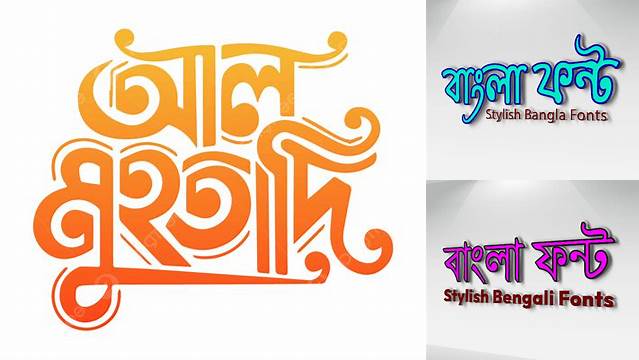
Hey guys! Are you looking to spice up your documents, designs, or social media posts with some stylish Bangla fonts? Well, you’ve come to the right place! In this article, we’re diving deep into the world of Bangla fonts, exploring everything from where to download them for free to how to install them on your PC. We'll also cover different styles and use cases so you can find the perfect font for your needs. So, let’s get started!
5. Different Styles of Bangla Fonts Available
When it comes to stylish Bangla fonts, you're spoiled for choice! There’s a whole universe of styles out there, each with its own unique personality and flair. Understanding these different styles can help you choose the perfect font for your specific project. One of the most popular categories is the classic Bangla font. These fonts often have a traditional, elegant look and feel, making them ideal for formal documents, invitations, and other sophisticated designs. Think of fonts that evoke a sense of heritage and timeless beauty. On the other end of the spectrum, we have modern Bangla fonts. These fonts embrace contemporary design principles, often featuring clean lines, geometric shapes, and a minimalist aesthetic. They're perfect for websites, branding materials, and anything that needs a fresh, cutting-edge vibe. For a touch of personality, consider script Bangla fonts. These fonts mimic the look of handwriting, adding a personal and artistic touch to your designs. They're great for headings, logos, and anything where you want to make a statement. Then there are display Bangla fonts, which are designed to grab attention. These fonts are often bold, quirky, and highly stylized, making them perfect for posters, advertisements, and other eye-catching materials. Don't forget about serif and sans-serif Bangla fonts. Serif fonts have small decorative strokes at the ends of the letters, giving them a more traditional and formal appearance, while sans-serif fonts have clean, straight lines, making them more modern and legible on screens. Exploring these different styles can be a fun and creative journey. Don't be afraid to experiment and mix and match fonts to create unique and visually appealing designs. The key is to find fonts that not only look great but also effectively communicate your message. So, dive in and discover the perfect style for your next project! You got this, guys!
6. Best Bangla Fonts for Professional Use
For professional projects, selecting the right stylish Bangla font is crucial. You want something that not only looks good but also conveys professionalism, readability, and aligns with your brand or the project's tone. When it comes to professional use, certain font styles tend to work better than others. Clean, legible fonts are generally preferred, especially for body text and documents that require clarity. Serif and sans-serif fonts are both excellent choices, but it really depends on the specific context. Serif fonts, with their small decorative strokes, often lend a sense of tradition and sophistication, making them ideal for formal documents, reports, and publications. Sans-serif fonts, on the other hand, have a more modern and minimalist feel, making them great for websites, presentations, and branding materials. When choosing a font for professional use, consider the overall design aesthetic. Does the font complement your brand's identity? Is it easy to read both on screen and in print? These are important questions to ask yourself. It’s also wise to stick to font families that offer a range of weights and styles. This gives you flexibility in your design and ensures consistency across different applications. For example, you might use a bold weight for headings and a regular weight for body text. Some popular choices for professional Bangla fonts include those that balance elegance with readability. Fonts that are well-designed and have clear letterforms tend to perform best in a professional setting. Avoid overly decorative or stylized fonts, as they can sometimes be distracting or difficult to read, especially in large blocks of text. Remember, the goal is to communicate effectively, so prioritize clarity and professionalism in your font selection. With the right font, your professional projects will not only look polished but also leave a lasting impression. Keep up the great work, everyone!
7. Bangla Fonts for Creative Design Projects
Okay, let's talk about creative design projects! This is where you can really let your imagination run wild with stylish Bangla fonts. Unlike professional use, where clarity and readability are paramount, creative projects often call for fonts that are expressive, unique, and make a bold statement. This is your chance to explore those more stylized, artistic, and unconventional font options. When you're working on a creative design, think about the mood and message you want to convey. Are you going for playful and fun, or edgy and dramatic? The font you choose can play a huge role in setting the tone. For example, a script Bangla font can add a touch of elegance and personality to a design, while a bold display font can command attention and create a strong visual impact. Don't be afraid to experiment with different font combinations. Mixing and matching fonts can add depth and interest to your designs, but it's important to do it thoughtfully. A good rule of thumb is to choose one dominant font for headings or key elements and then pair it with a simpler font for body text. This creates a visual hierarchy and ensures readability. Consider the context of your design as well. A font that looks amazing on a poster might not work as well on a website, and vice versa. Think about the medium and how the font will appear in different sizes and formats. If you're feeling adventurous, you can even try modifying existing fonts or creating your own custom fonts. This is a great way to develop a unique visual identity for your brand or project. Remember, the key to using stylish Bangla fonts in creative design is to have fun and express yourself! Don't be afraid to break the rules and try new things. The most important thing is that your font choice enhances your design and effectively communicates your message. Go unleash your creativity, guys!
8. Bangla Fonts for Social Media Graphics
Social media is a visual playground, and choosing the right stylish Bangla font for your graphics can make all the difference in capturing attention and engaging your audience. With countless posts vying for views, your visuals need to stand out, and typography is a key element in achieving that. When selecting a Bangla font for social media, think about the platform and your target audience. What kind of vibe do you want to convey? Are you aiming for a professional and polished look, or something more casual and playful? Your font choice should align with your brand and the overall tone of your content. Legibility is also crucial, especially on smaller screens. Social media users are often scrolling quickly through their feeds, so your text needs to be easy to read at a glance. Avoid overly decorative or intricate fonts that might get lost in the noise. Instead, opt for clean, clear fonts that grab attention without sacrificing readability. Bold fonts tend to work well for headlines and captions, while simpler fonts are better for longer blocks of text. Experiment with different font combinations to find a pairing that is visually appealing and easy on the eyes. Consider using a font that reflects the content of your post. If you're sharing a motivational quote, a script or handwritten font might add a personal touch. If you're promoting a product or service, a modern sans-serif font might convey a sense of innovation and professionalism. Remember to think about the overall design of your graphic. Your font should complement the images and other visual elements, creating a cohesive and visually appealing composition. Use contrasting colors to make your text stand out, and ensure that your font size is appropriate for the platform. Social media graphics are all about making a statement, so don't be afraid to experiment with stylish Bangla fonts that are eye-catching and memorable. With the right typography, your social media content will shine! Keep up the awesome work, everyone!
9. Bangla Fonts for Website Design
When it comes to website design, selecting the right stylish Bangla font is paramount. Your font choice can significantly impact the user experience, influencing everything from readability to the overall aesthetic appeal of your site. A well-chosen font can enhance your brand identity, communicate your message effectively, and keep visitors engaged. First and foremost, readability should be your top priority. Websites are primarily text-based mediums, so your font needs to be easy on the eyes, especially for longer blocks of content. Opt for fonts with clear letterforms and adequate spacing. Sans-serif fonts are generally considered more legible on screens than serif fonts, but there are exceptions, so it's worth exploring different options. Consider the hierarchy of your content. Use different font sizes and weights to create a visual structure that guides users through your website. Headings should be larger and bolder than body text, and key information should be highlighted with emphasis. Font pairing is another important aspect of website typography. Choose fonts that complement each other and create a harmonious visual balance. A common approach is to pair a sans-serif font for headings with a serif font for body text, or vice versa. This creates contrast and visual interest without overwhelming the reader. Think about your brand identity and the overall tone of your website. Your font choice should align with your brand's personality and values. A modern, minimalist website might benefit from a clean sans-serif font, while a more traditional website might opt for a classic serif font. Don't forget about loading times. Some fonts, especially custom fonts, can slow down your website's performance, which can negatively impact the user experience. Optimize your fonts for the web and consider using web-safe fonts that are widely supported across different browsers and devices. Responsive design is also crucial. Your font should look good on all screen sizes, from desktops to smartphones. Test your font choices on different devices and browsers to ensure that your website looks consistent and professional across the board. Choosing the right stylish Bangla font for your website is an investment in your online presence. With careful consideration and attention to detail, you can create a website that is both visually appealing and highly effective. Keep up the awesome work, guys!